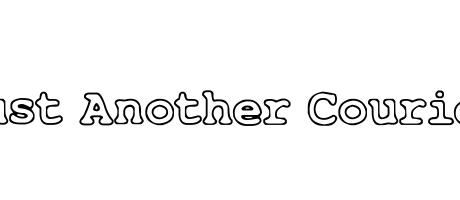
Just Another Courier
Just Another Courier is a playful take on the classic Courier font. Its letters are bold and slightly uneven, with rounded edges giving them a hand-drawn, almost wobbly quality. The overall effect is friendly and approachable, yet retains the structural familiarity of Courier. It suggests a fun, informal style, perfect for headlines or quirky projects.